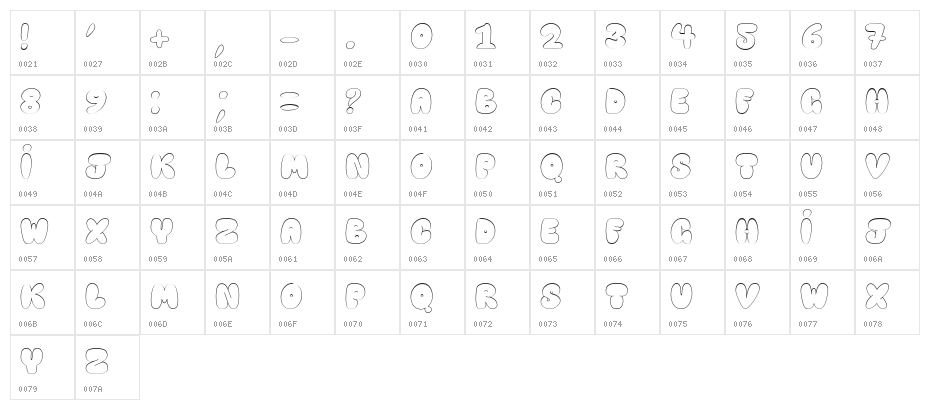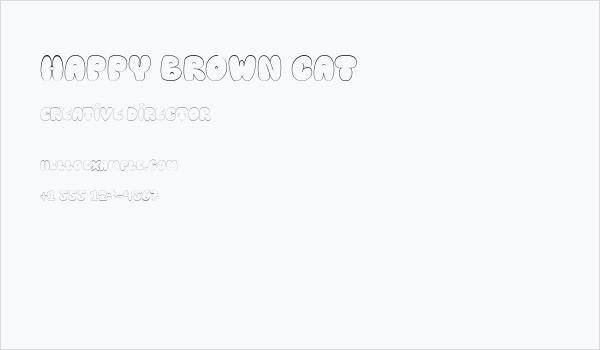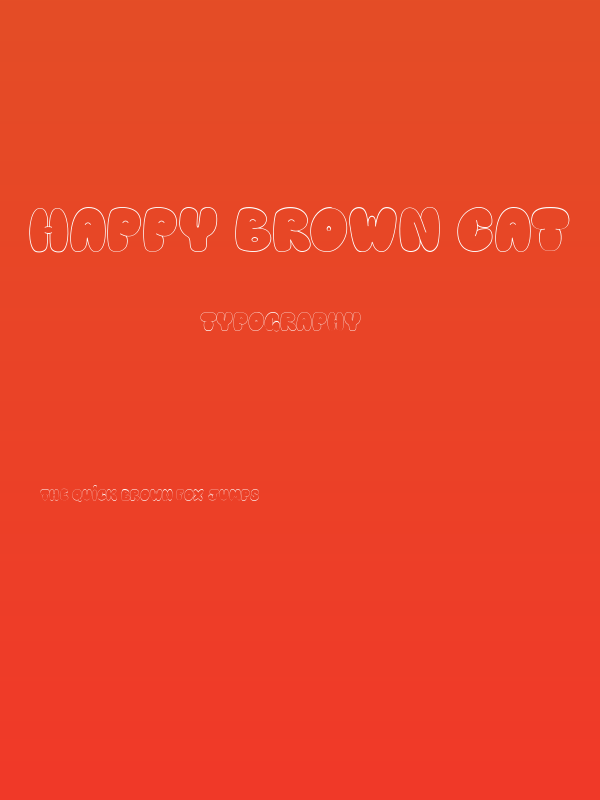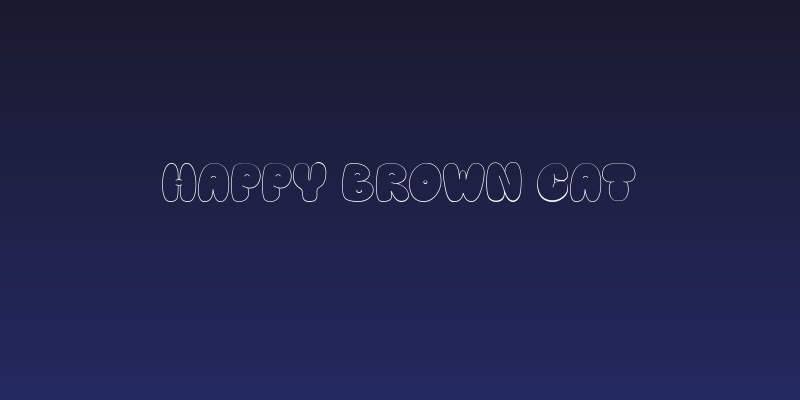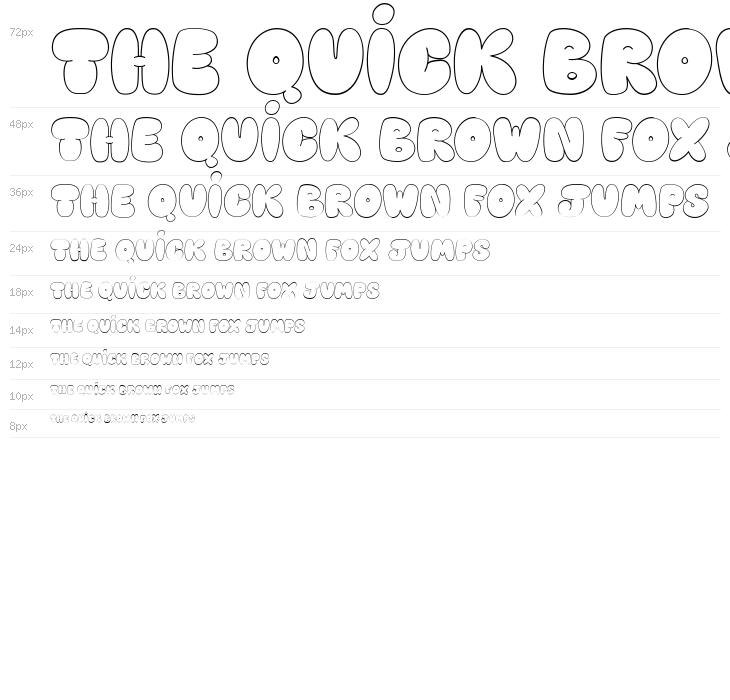
Happy brown cat Font
Happy brown cat Description
This playful and whimsical font features rounded, bubble-like characters that convey a sense of fun and lightheartedness. Each letter is bold and evenly spaced, creating a cohesive and visually appealing look. The font includes both uppercase and lowercase letters, as well as numbers and a selection of special characters. Its unique style is characterized by smooth curves and a consistent stroke width, making it ideal for projects that require a friendly and approachable aesthetic. The font's design is particularly suited for children's materials, party invitations, or any creative project that benefits from a touch of joy and exuberance.
Overall StylePlayful, Whimsical
Proposed ProjectsIdeal for children's books, party invitations, playful branding, and creative posters.